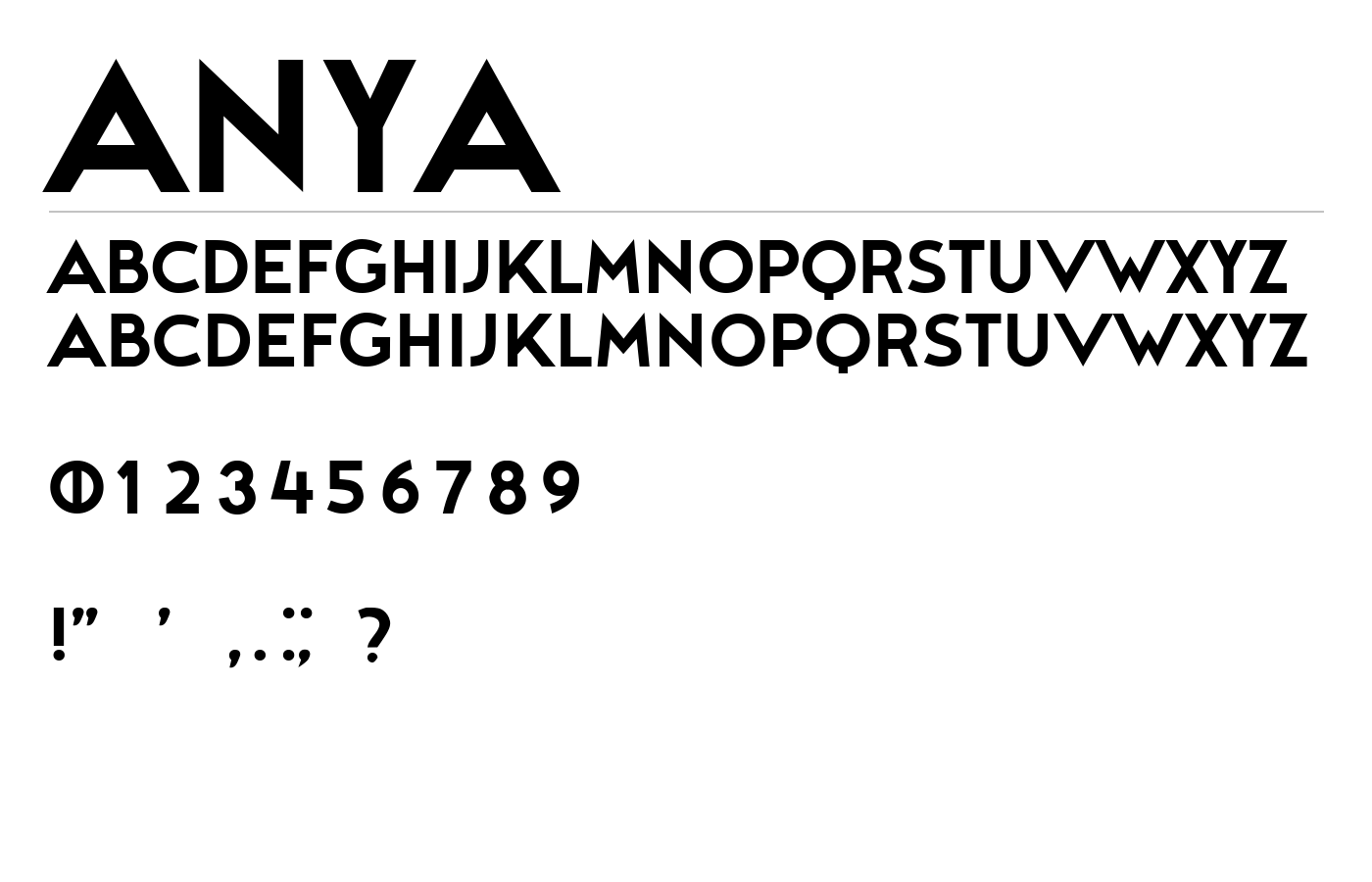
Anya Font is a bold, geometric sans serif typeface with clean, sharp lines and a modern, art-deco-inspired style. It features strong angular shapes, a high x-height, and distinctive letterforms that give it a sleek, confident personality, perfect for striking headlines, branding, and design projects that need a contemporary yet elegant look. Its clear, structured appearance makes it ideal for use in logos, posters, and editorial layouts where impact and readability are essential.
Anya Font
About Anya Font